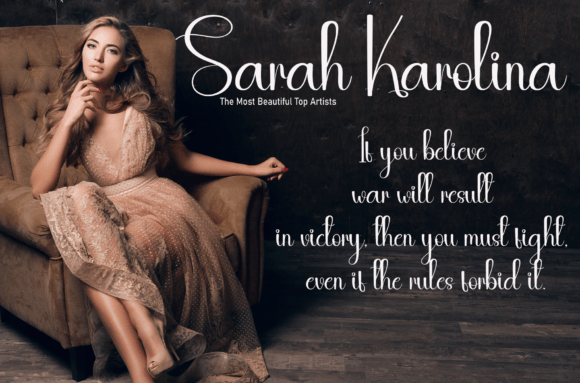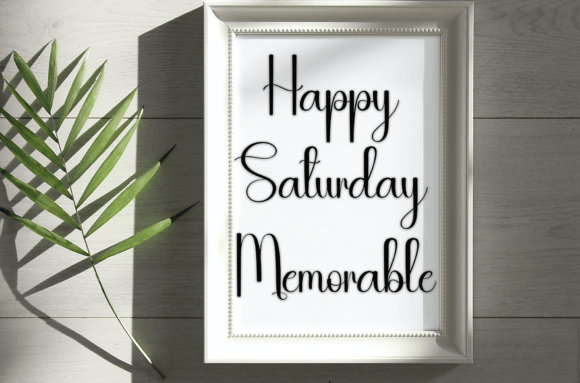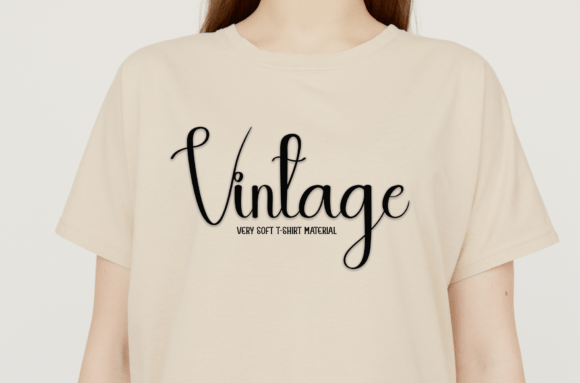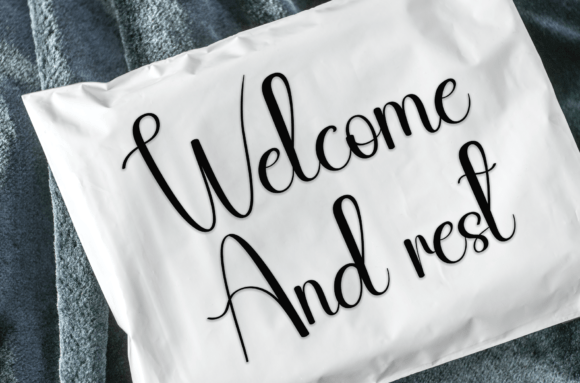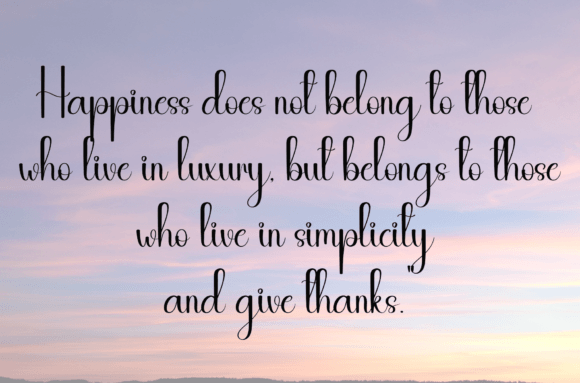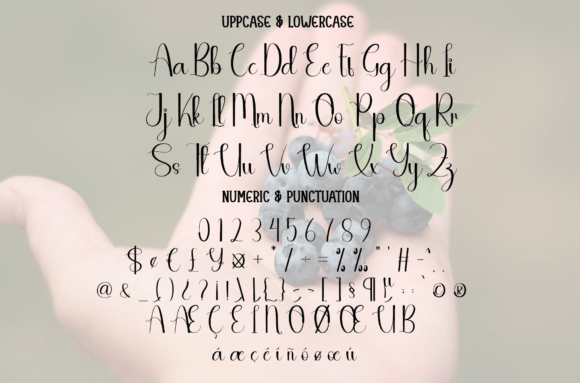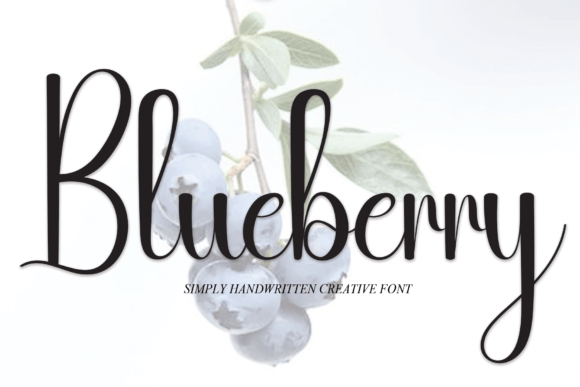
Introducing Blueberry Font: The Sweet and Friendly Handwritten Font for Your Creative Projects
Are you looking for a font that can add a touch of sweetness and friendliness to your designs? Look no further than Blueberry Font! This beautiful handwritten font is perfect for creating wedding invitations, cards, and other designs that require a fun and playful touch. In this article, we’ll take a closer look at Blueberry Font, its features, and how you can use it to elevate your creative projects.
What is Blueberry Font?
Blueberry Font is a sweet and friendly handwritten font that’s perfect for designers and crafters who want to add a personal touch to their work. This font is designed to be fresh and neat, making it ideal for a variety of creative projects, from wedding invitations and cards to posters and social media graphics.
Key Features of Blueberry Font
• Handwritten style: Blueberry Font has a beautiful handwritten style that’s perfect for adding a personal touch to your designs.
• Sweet and friendly: This font has a sweet and friendly feel that’s perfect for creating designs that are approachable and inviting.
• Fresh and neat: Blueberry Font is designed to be fresh and neat, making it easy to read and perfect for a variety of creative projects.
• Versatile: This font is versatile and can be used for a variety of designs, from wedding invitations and cards to posters and social media graphics.
How to Use Blueberry Font in Your Designs
Blueberry Font is easy to use and can be incorporated into your designs in a variety of ways. Here are a few ideas to get you started:
• Wedding invitations: Blueberry Font is perfect for creating beautiful and unique wedding invitations that will set the tone for your special day.
• Cards: This font is great for creating cards for birthdays, holidays, and other special occasions.
• Posters: Blueberry Font can be used to create eye-catching posters for events, promotions, and more.
• Social media graphics: This font is perfect for creating social media graphics that are fun, playful, and engaging.
Why Choose Blueberry Font?
There are many fonts to choose from, but Blueberry Font stands out for its unique combination of sweetness, friendliness, and versatility. Here are a few reasons why you should choose Blueberry Font for your next design project:
• Unique style: Blueberry Font has a unique handwritten style that’s sure to make your designs stand out.
• Easy to read: This font is designed to be easy to read, making it perfect for a variety of creative projects.
• Customizable: Blueberry Font can be customized to fit your design needs, making it a great choice for designers and crafters.
Tips for Using Blueberry Font Effectively
Here are a few tips for using Blueberry Font effectively in your designs:
• Use it sparingly: Blueberry Font is a bold font, so use it sparingly to add emphasis to your designs.
• Pair it with other fonts: This font pairs well with other fonts, so don’t be afraid to experiment with different combinations.
• Experiment with colors: Blueberry Font looks great in a variety of colors, so experiment with different colors to find the one that works best for your design.
Blueberry Font is a sweet and friendly handwritten font that’s perfect for designers and crafters who want to add a personal touch to their work. With its unique style, versatility, and ease of use, Blueberry Font is a great choice for a variety of creative projects. Whether you’re creating wedding invitations, cards, posters, or social media graphics, Blueberry Font is sure to make your designs stand out. So why wait? Try Blueberry Font today and see the difference it can make in your designs!